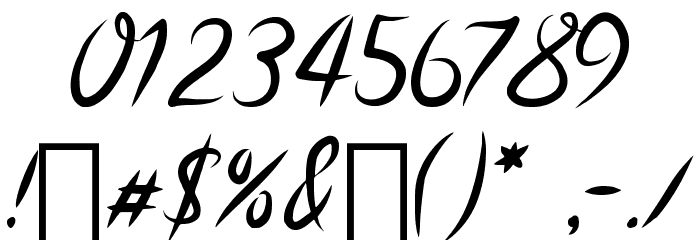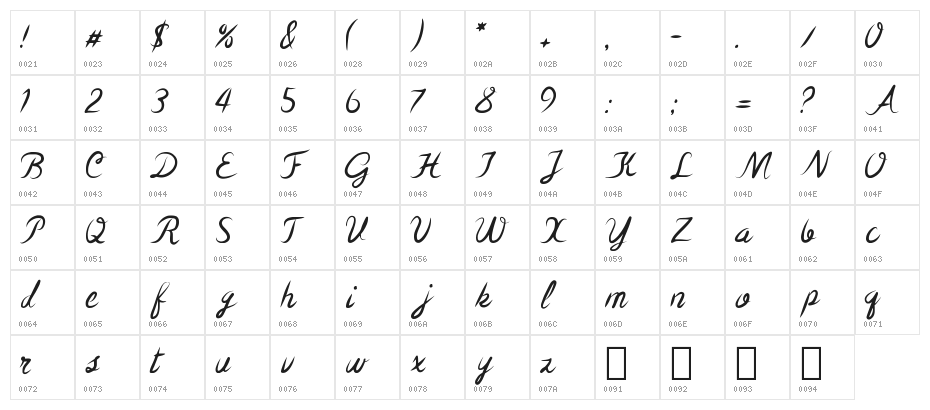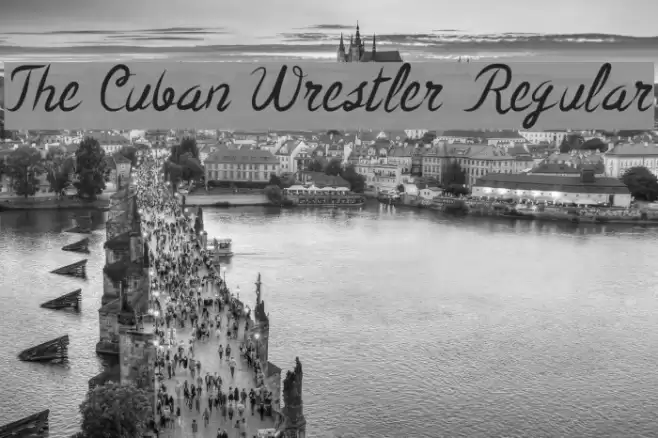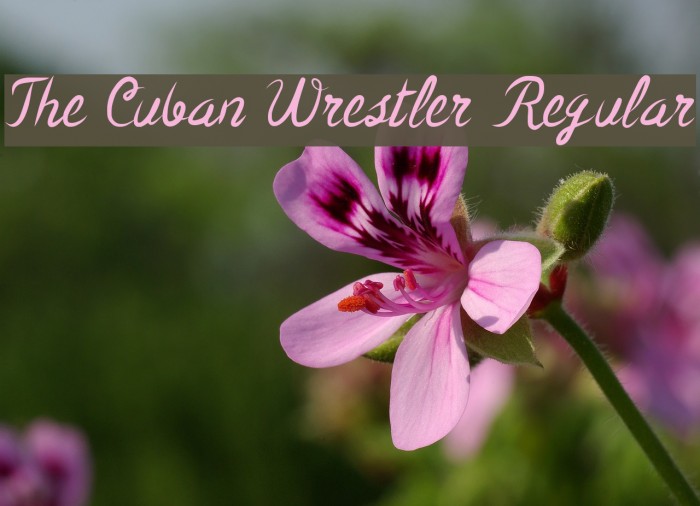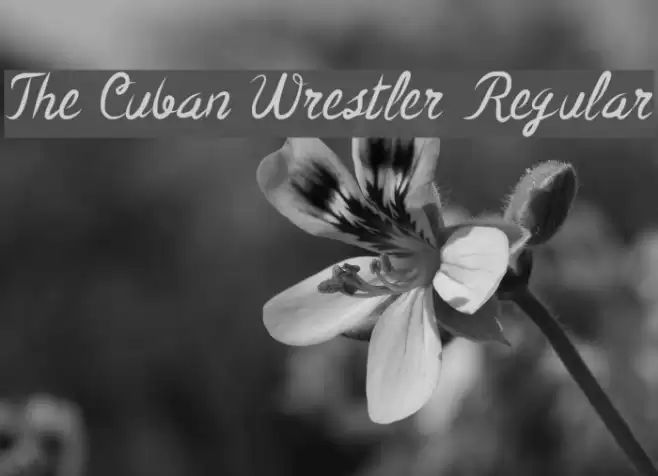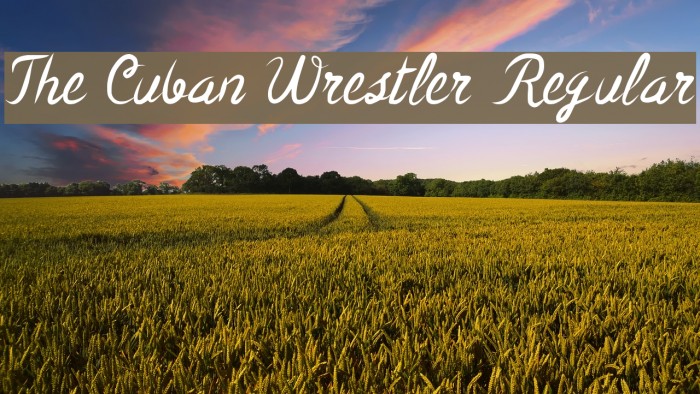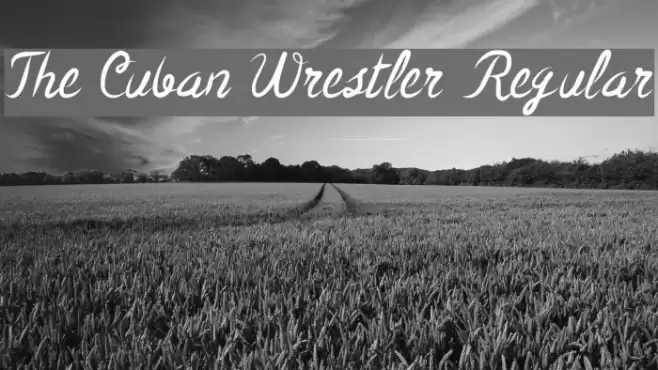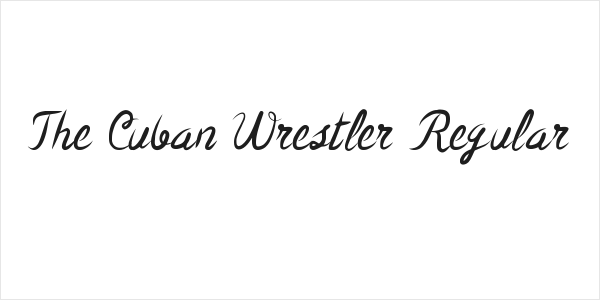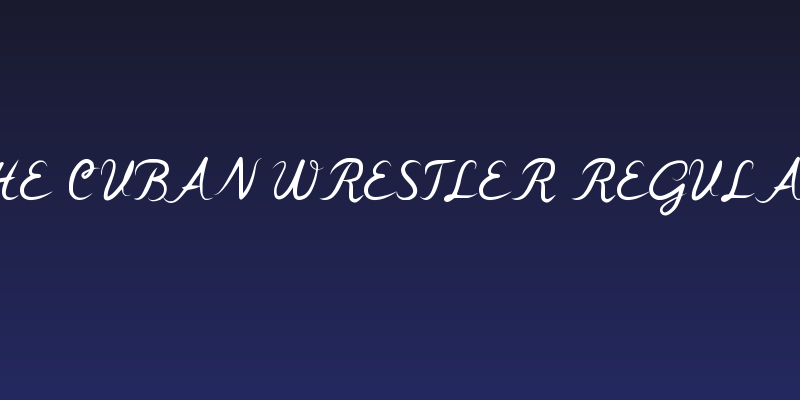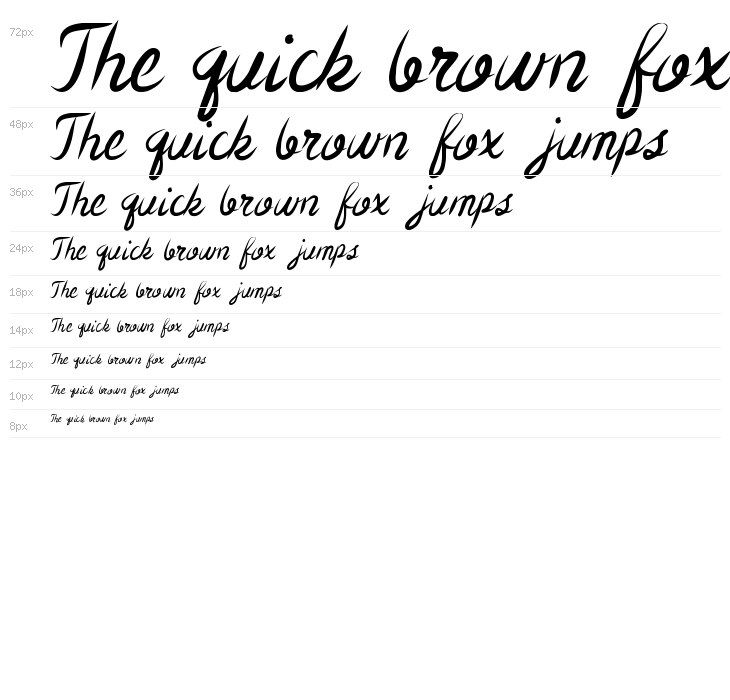
The Cuban Wrestler Regular Font
The Cuban Wrestler Regular Description
This font features a dynamic and expressive script style, characterized by its fluid and cursive letterforms. The uppercase letters exhibit a graceful, flowing motion with elegant loops and swashes, while the lowercase letters maintain a consistent rhythm and smooth connections. The numerals are bold and slightly slanted, complementing the overall cursive aesthetic. Special characters are designed with a similar flair, adding to the font's cohesive appearance. This font's energetic and stylish design makes it suitable for projects that require a touch of sophistication and creativity.